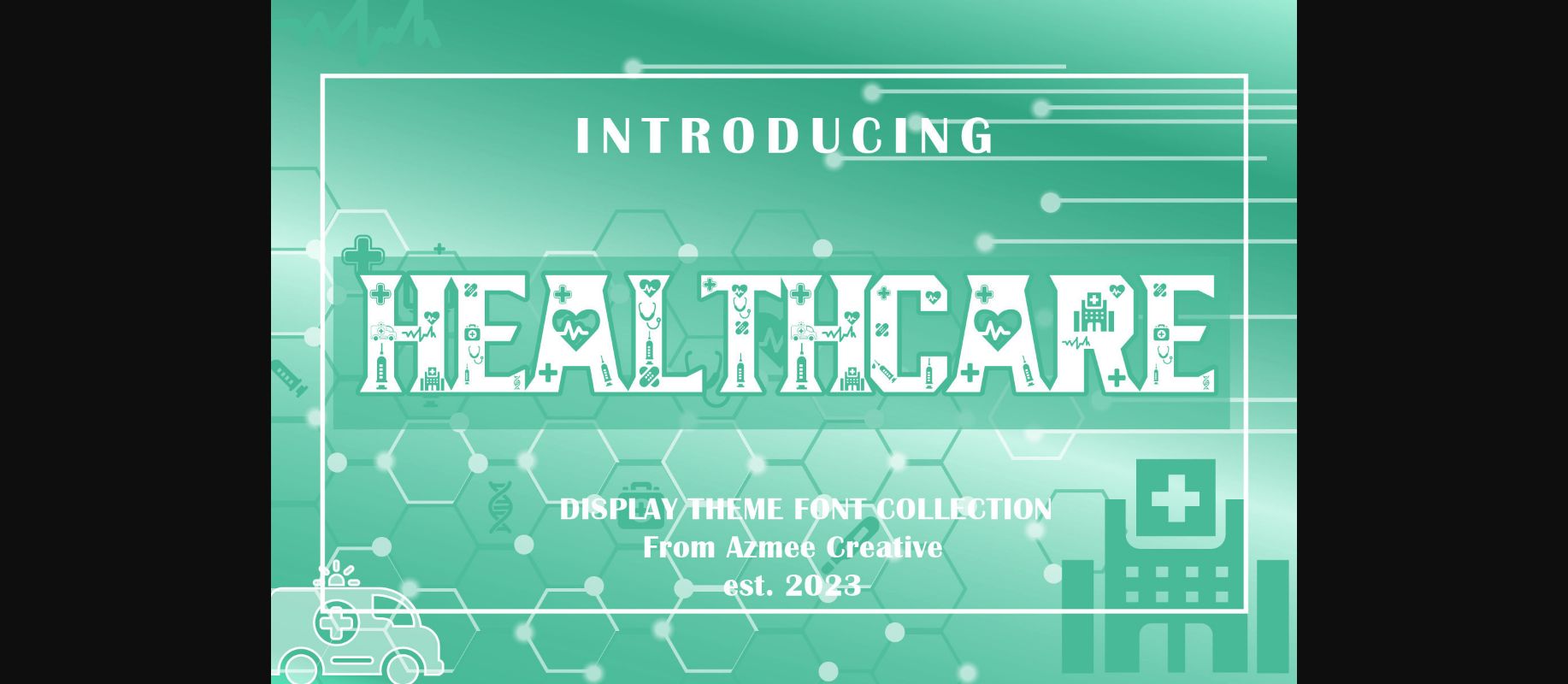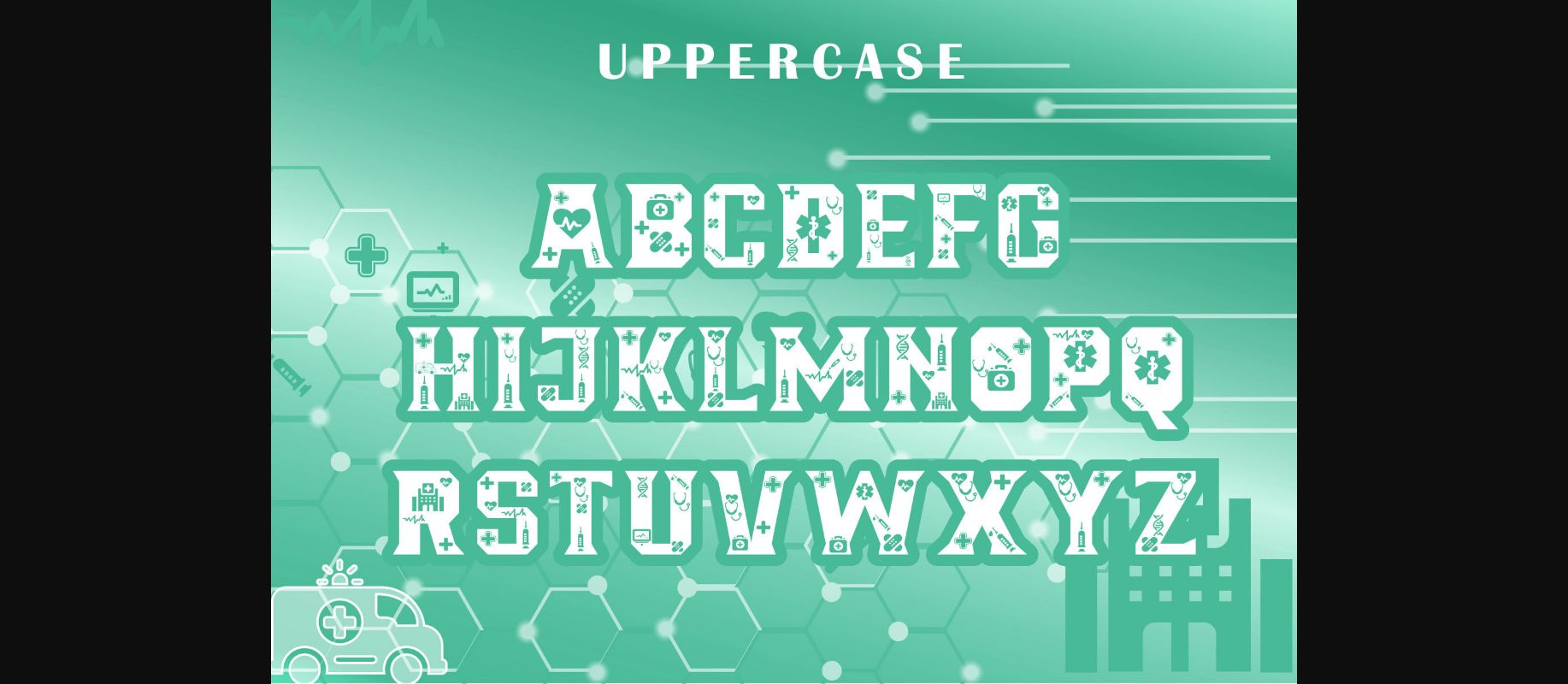
About Healthcare Font
The healthcare is a thick lettered and incredibly unique decorative font. It can be used for various design ideas, particularly those related to the nurses doctors & healthcare staff. This font is PUA encoded which means you can access all of the glyphs and swashes with ease.